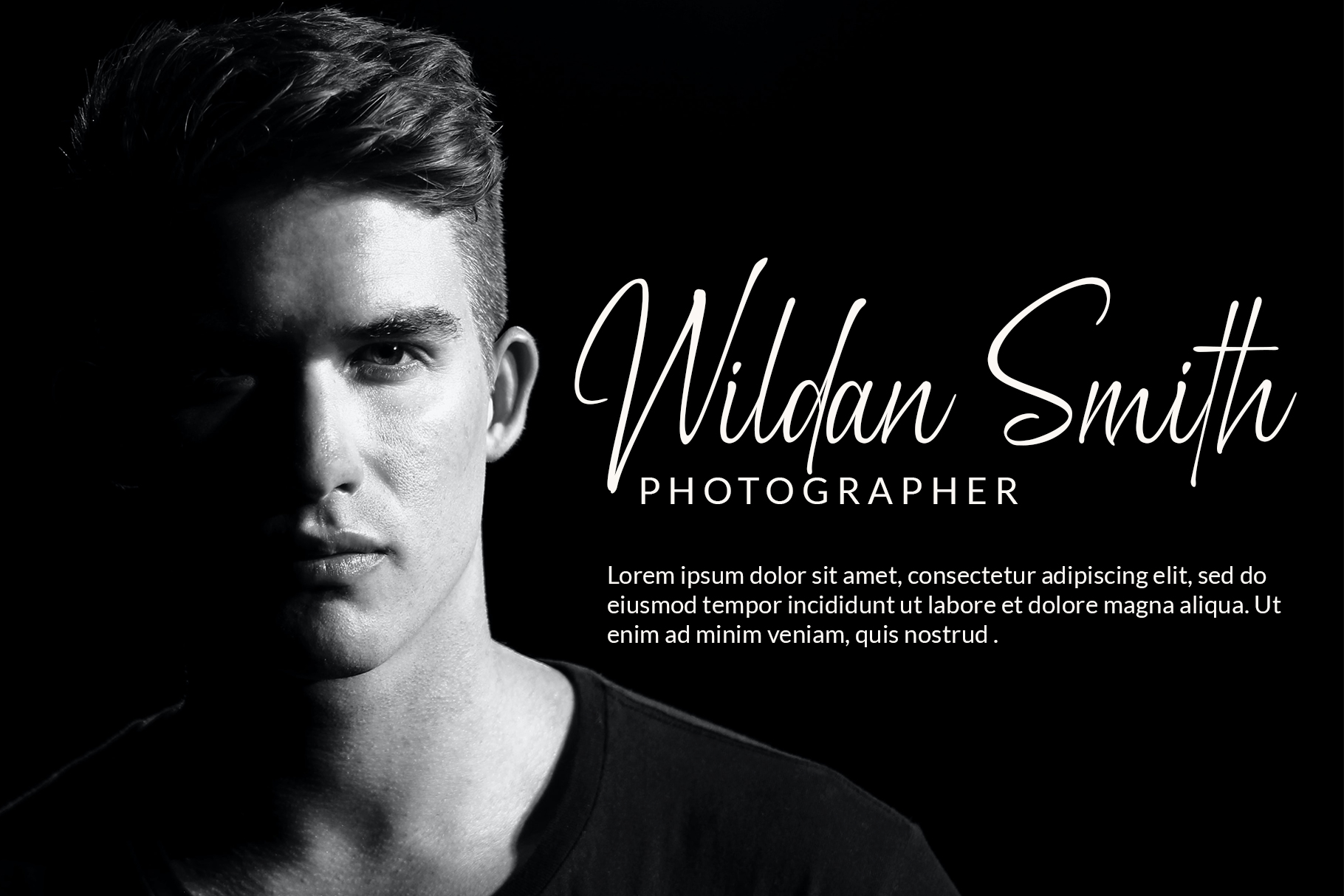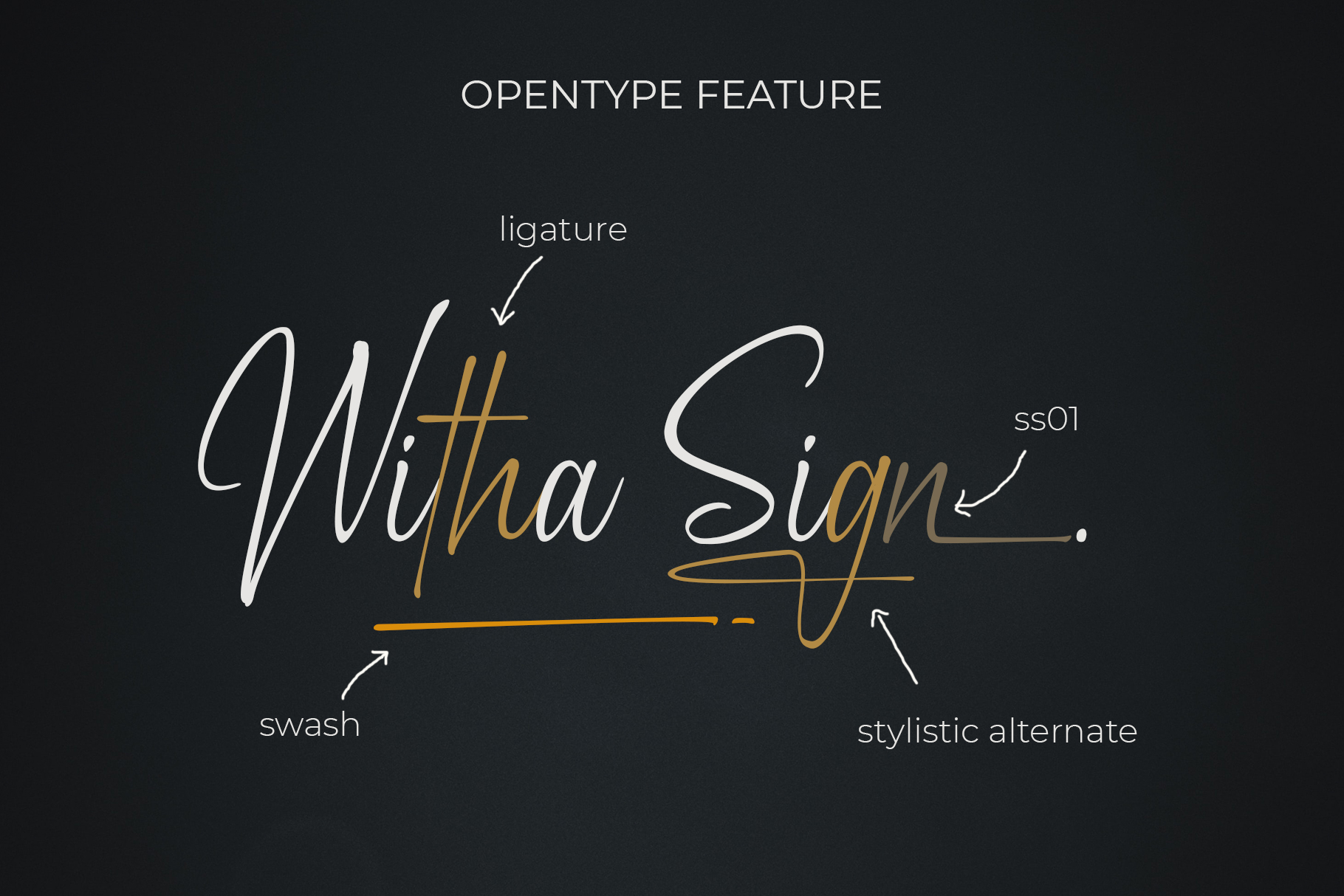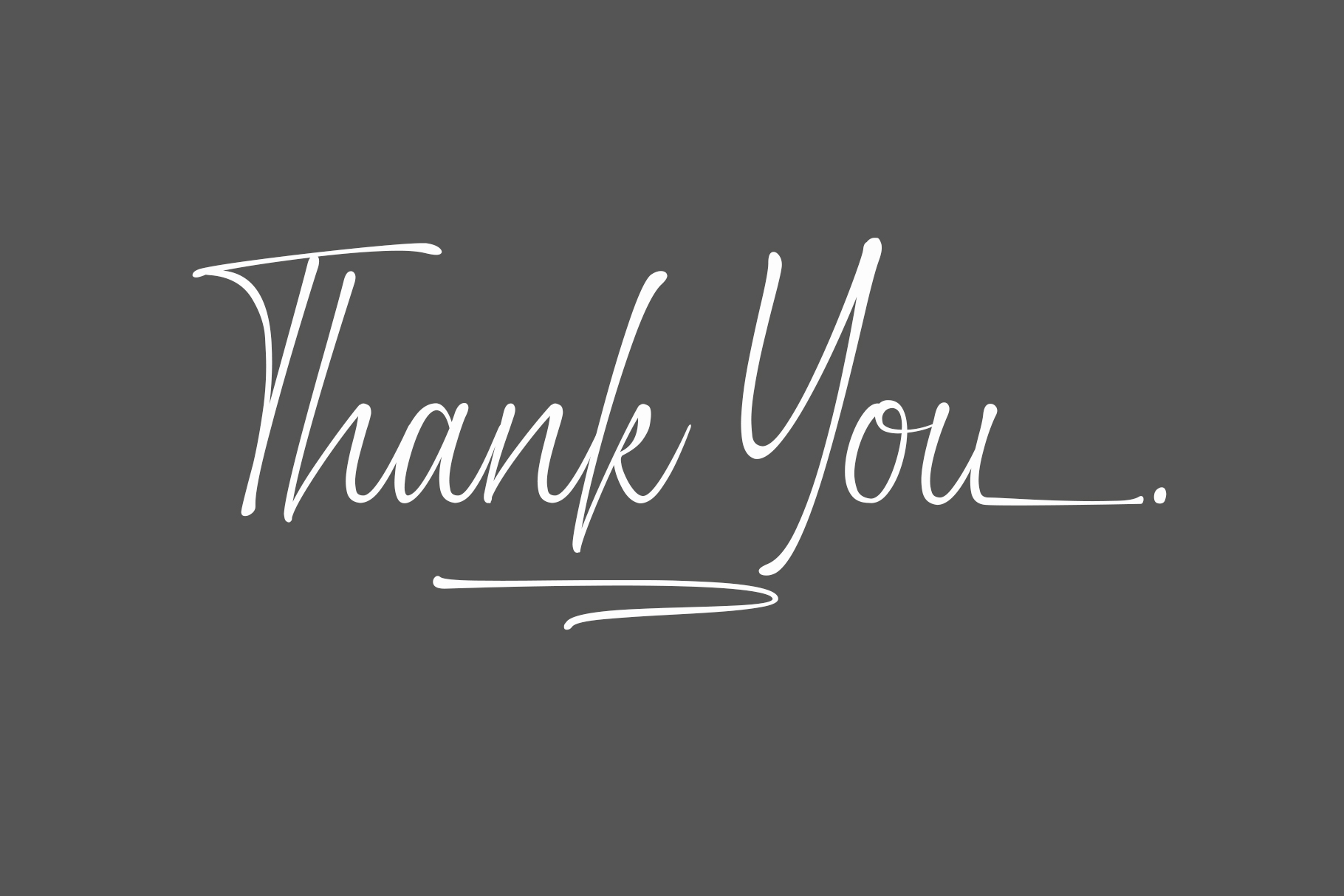
Witha Sign Font is a perfect signature font, with a natural & stylish flow. Sign Rathi Font is perfect for many different project such as logos & branding, invitation, stationery, wedding designs, social media posts, advertisements, product packaging, product designs, label, photography, special events or anything.